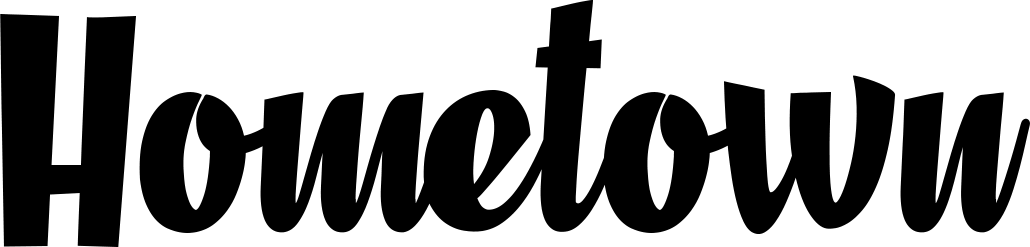
Hometown Font
Hometown is a script font that does not support numbers or punctuation. This font has an old style and conveys a sense of nostalgia to the audience. If your strategy is to impress your audience with old-fashioned fonts, using this fat marker font in your logo or website design can be a great option for you.